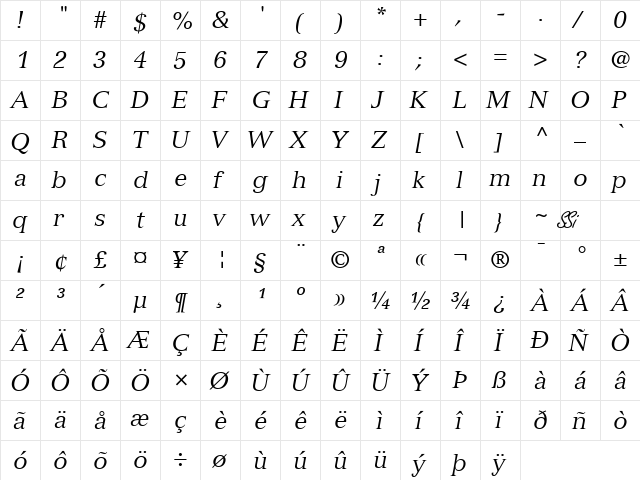
Nuance SSi Italic
Design Context for Nuance SSi Typeface
Nuance SSi is a composed and adaptable typeface that performs quietly and consistently across a wide range of design contexts. The slanted form adds forward momentum and visual energy.